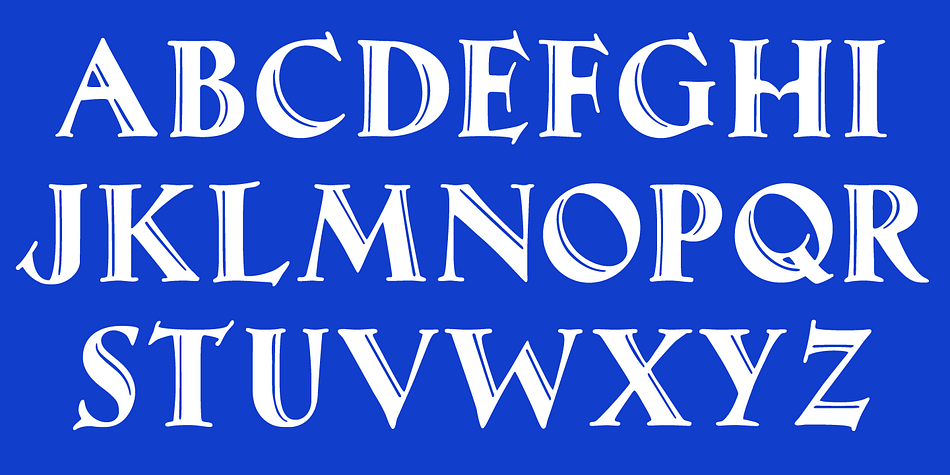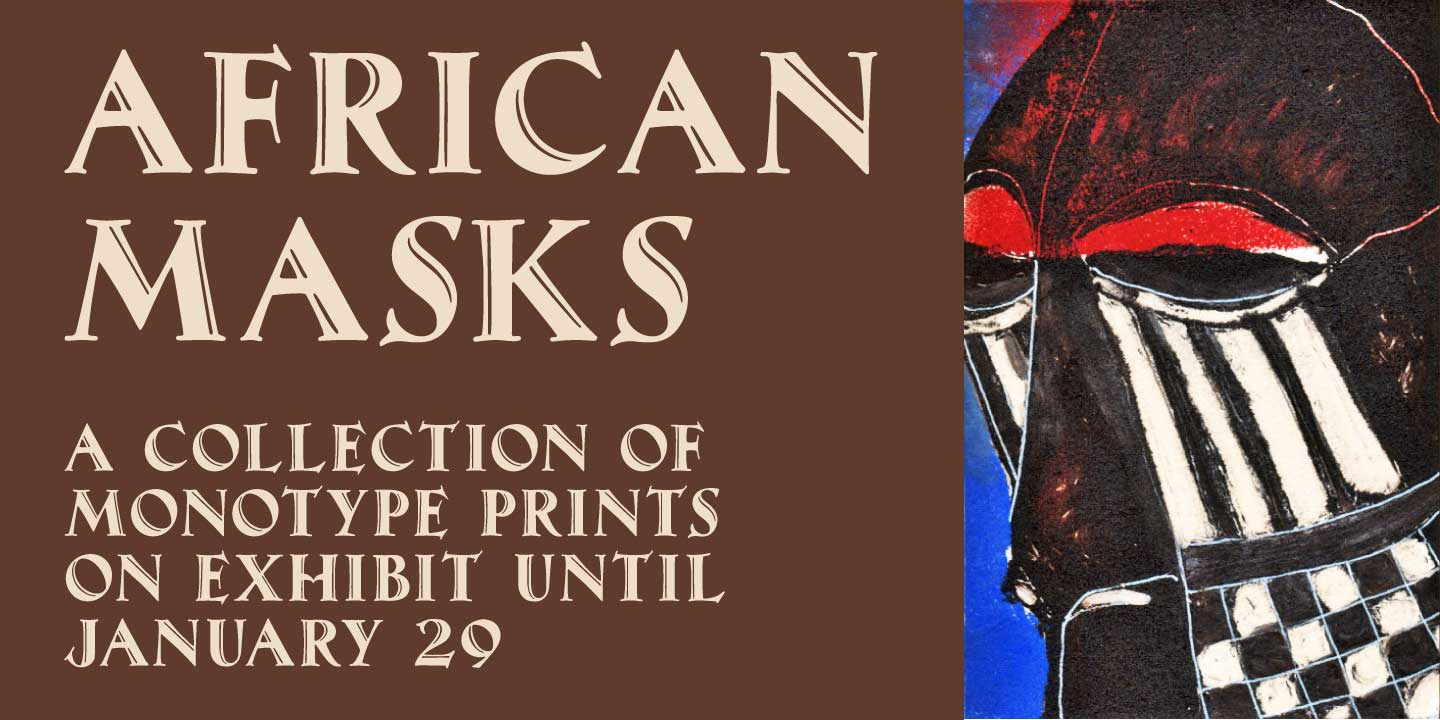
Maximilian CT is a retro font published by CastleType.
Maximillian™ is another one of those faces that caught my eye in one of my art deco type books, and I wanted it. After I finished the face, I noticed that there is a more clean-cut version of this face in digital format, but my version retains more of the funkiness of the original drawings.